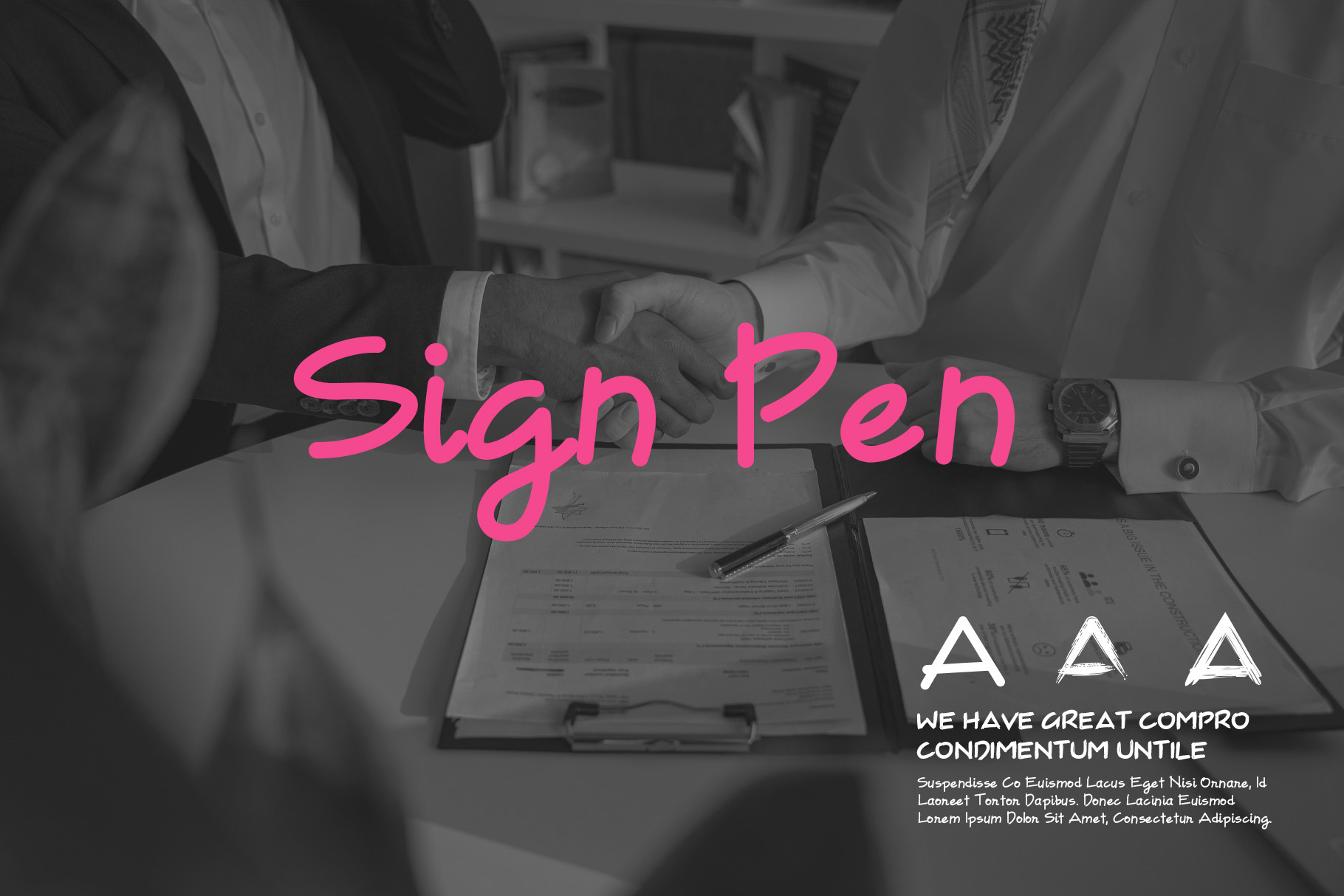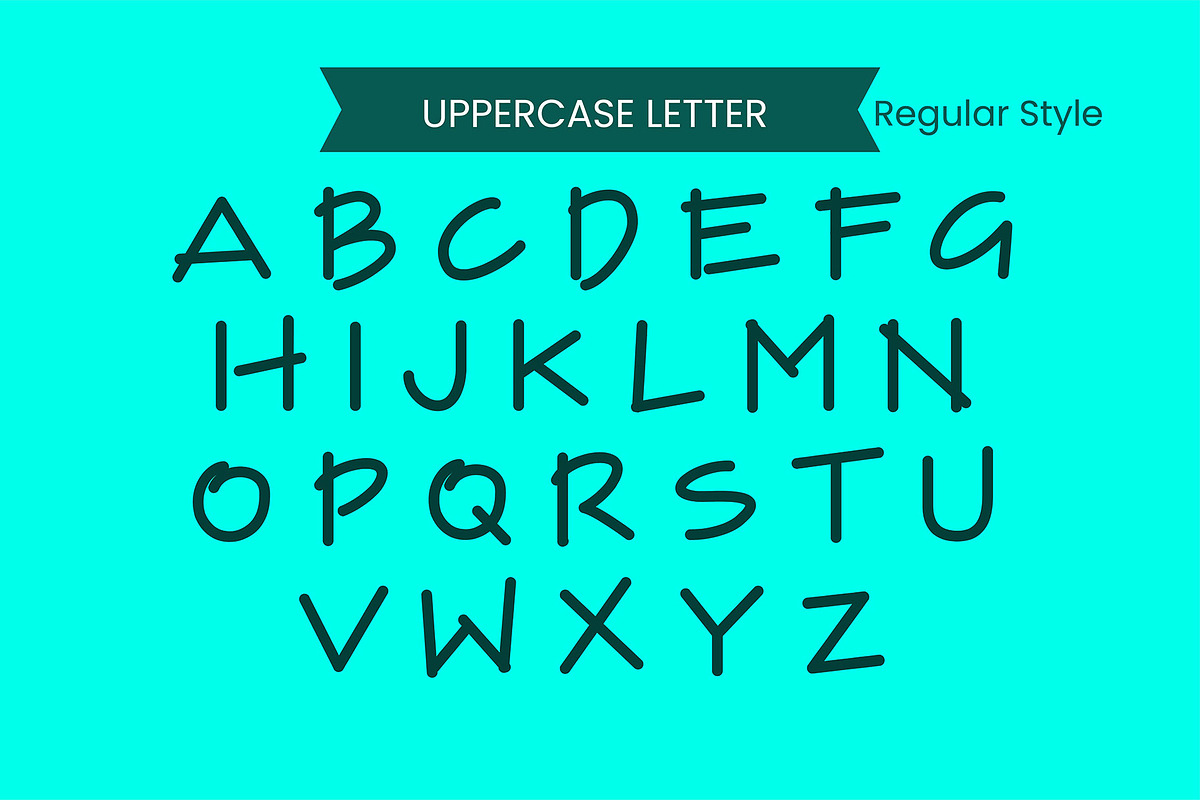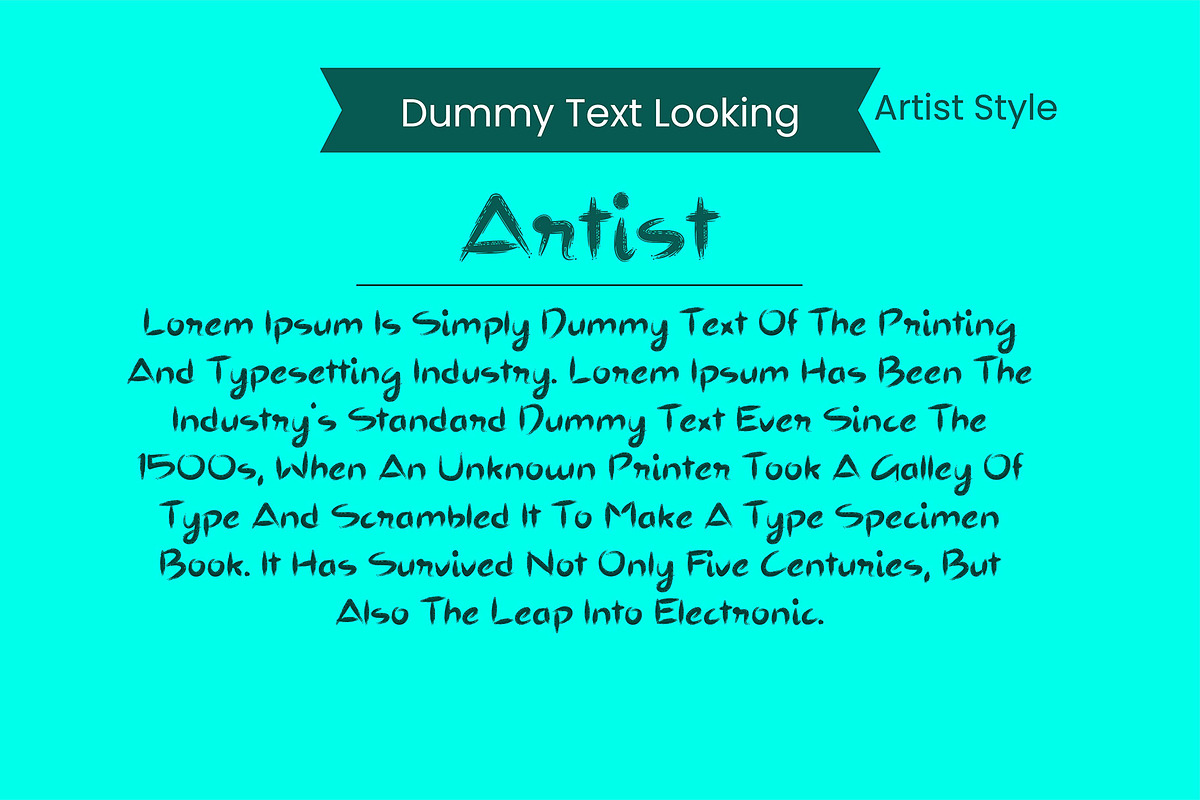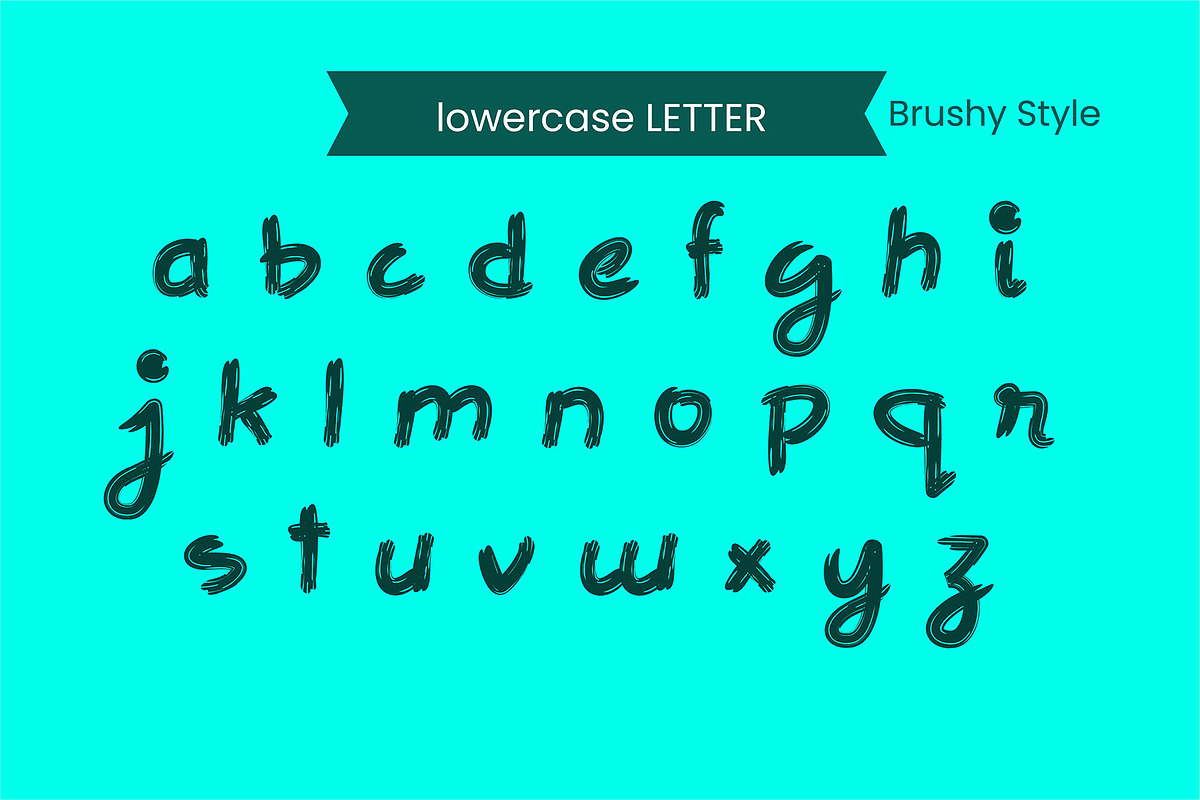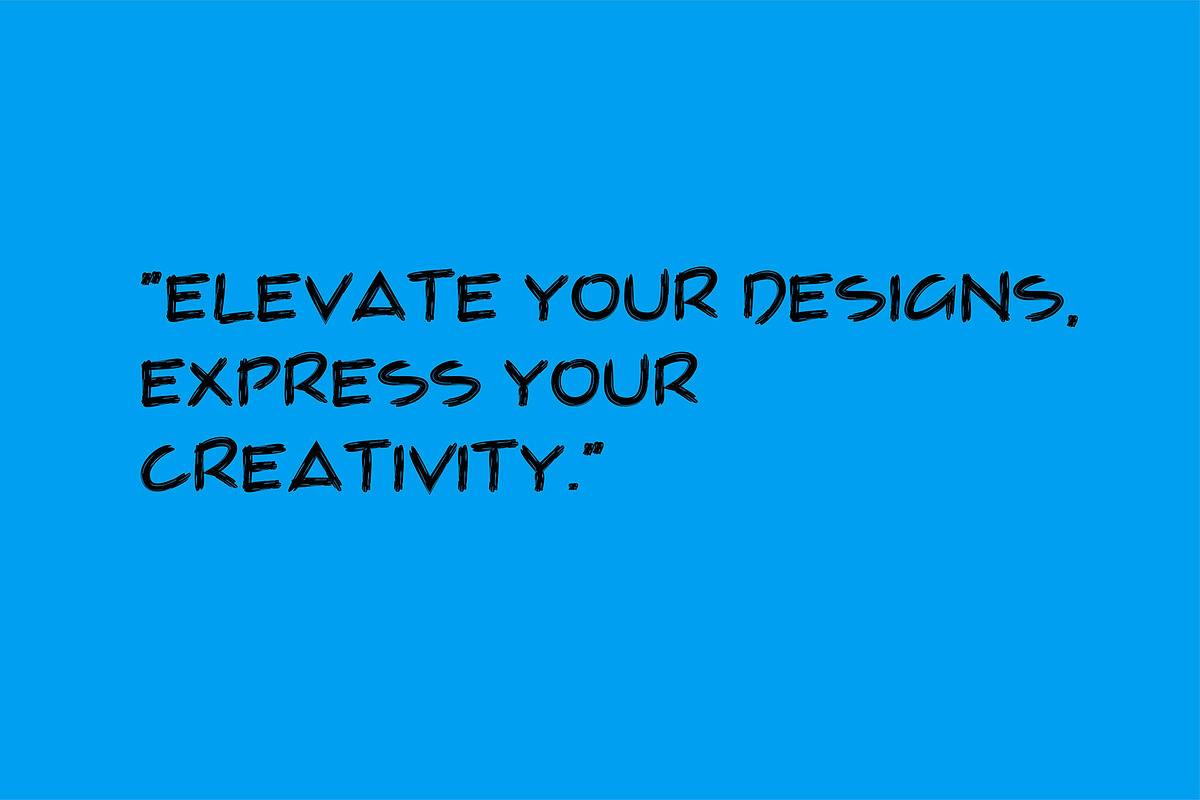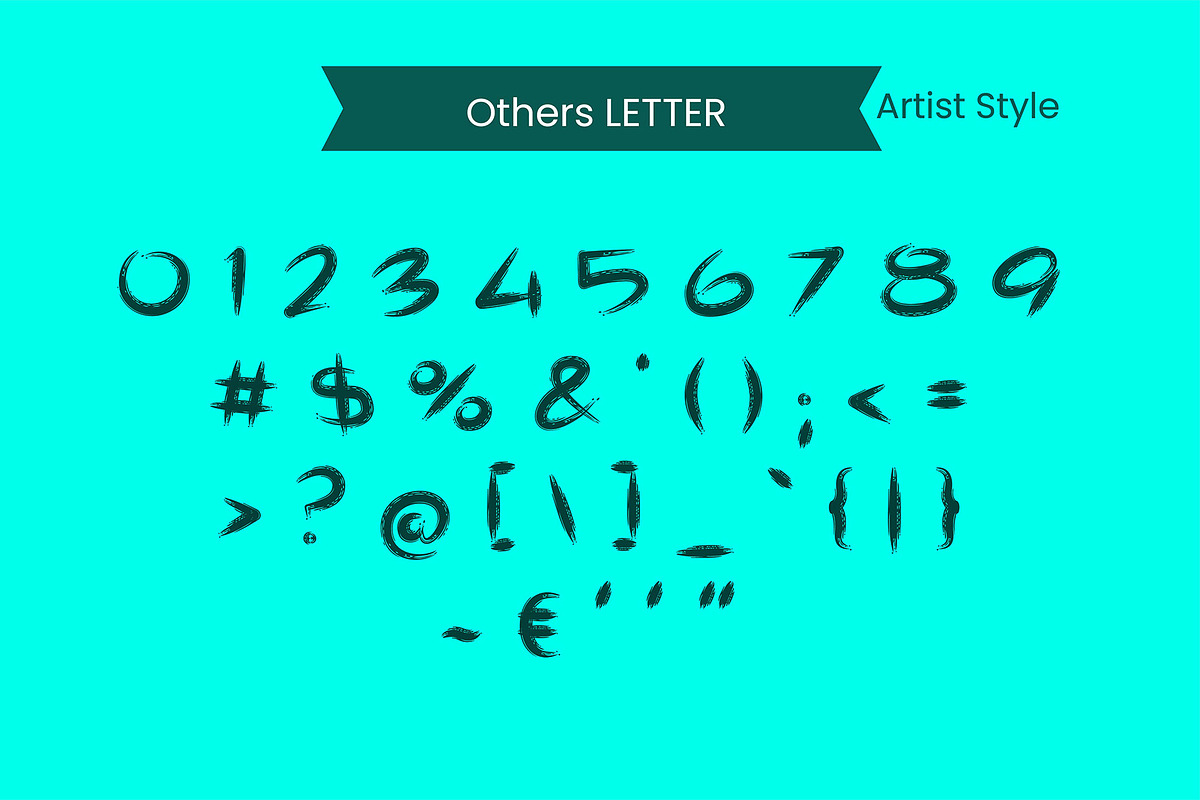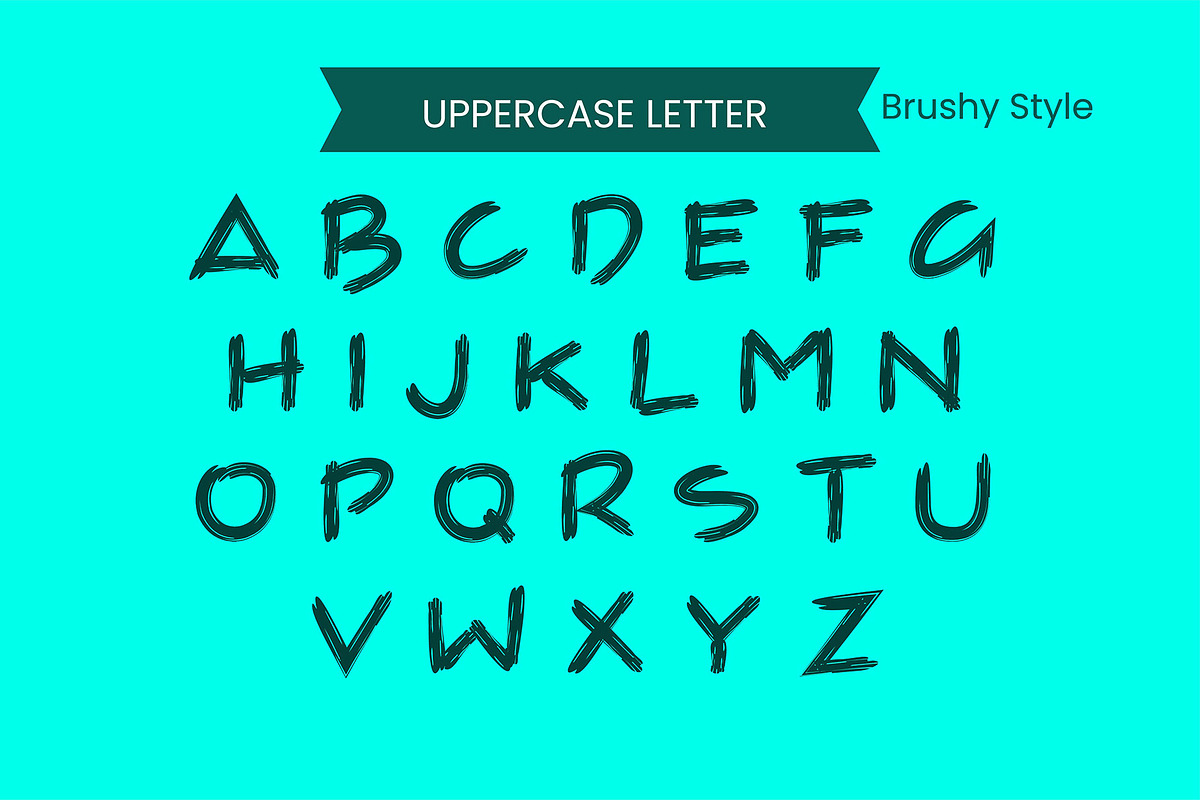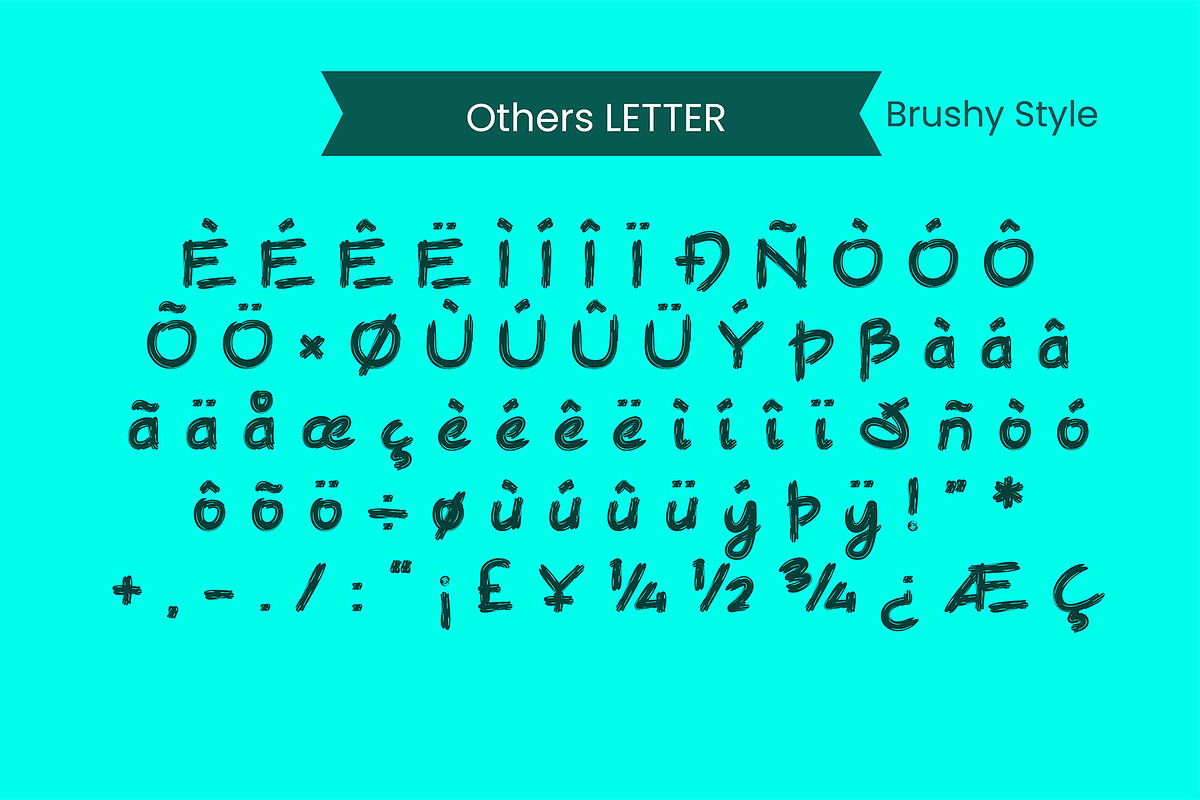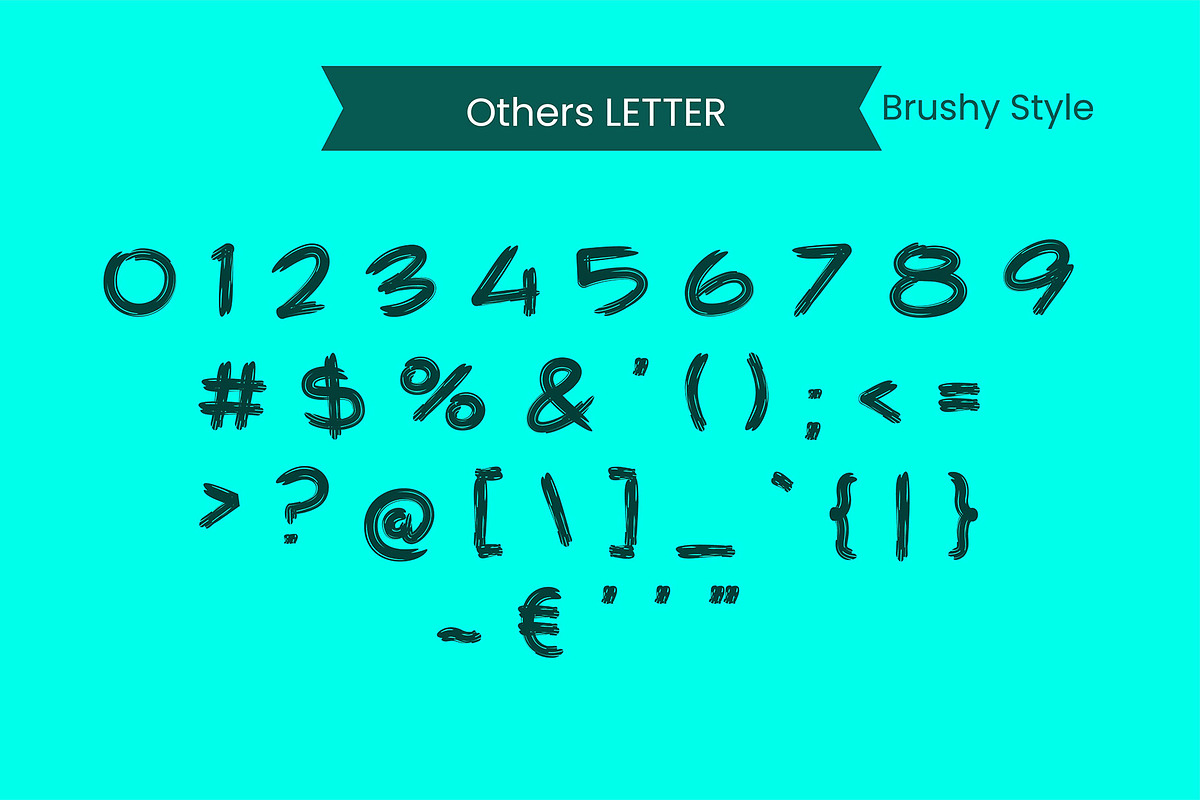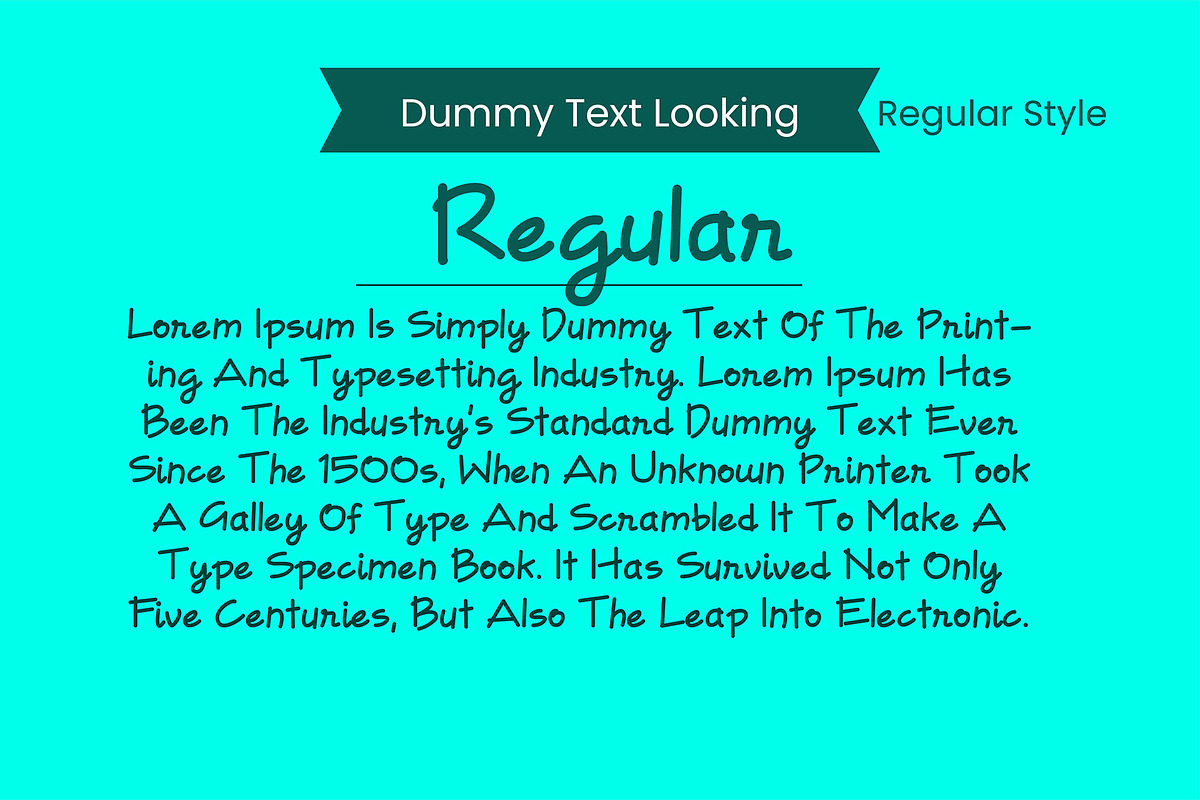
Sign Pen Font
Sign Pen Font – A Creative Handwritten Typeface for Stunning Designs
Unleash your creativity with the Sign Pen Font, a versatile 3-in-1 handwritten font family designed for any creative project. Perfectly crafted to add a personal and artistic touch, this font is a must-have for designers and creators looking to make an impact.
Font Features: 3 Unique Styles:
Sign Pen Round: Smooth and rounded for an elegant look. Sign Pen Brushy: Dynamic brush strokes for a bold and creative touch. **Sign Pen Round (Duplicate): A refined version with a modern twist.
Special Characters Included: Supports all special characters for international and creative flexibility.
Perfect for a Wide Range of Projects:
- Magazine Design
- Cover Design
- Flyer and Poster Design
- Display and Website Slider Fonts
- Logos and Headlines
- Product Branding
- E-Cards and Tags
Whether you’re designing for print, digital, or branding purposes, the Sign Pen Font delivers a unique and polished look. Its handwritten charm makes it ideal for logos, headlines, posters, magazine ads, and more.
Why Choose Sign Pen Font?